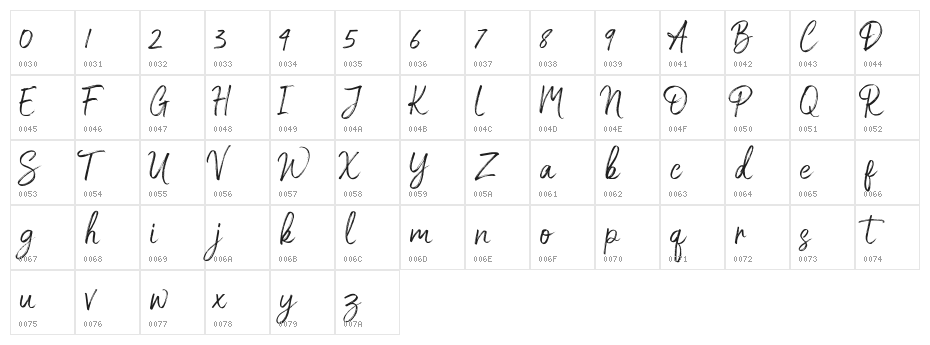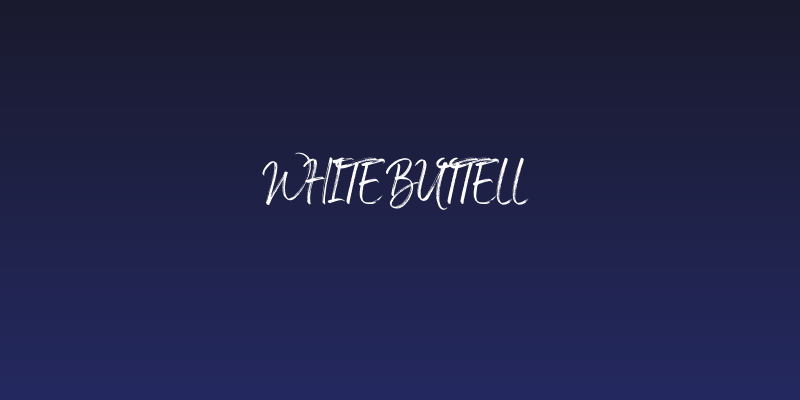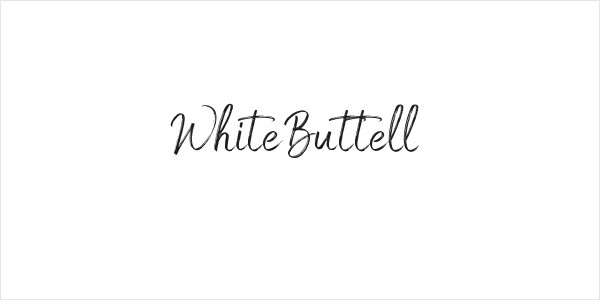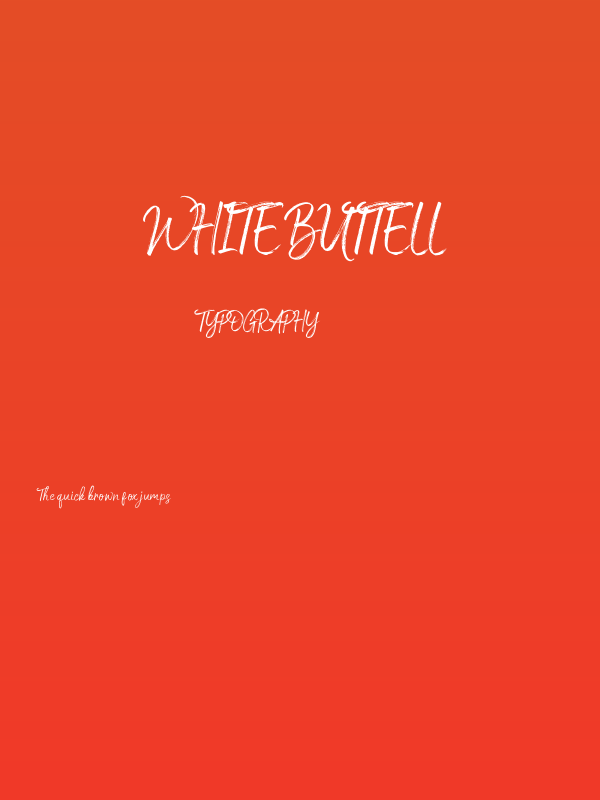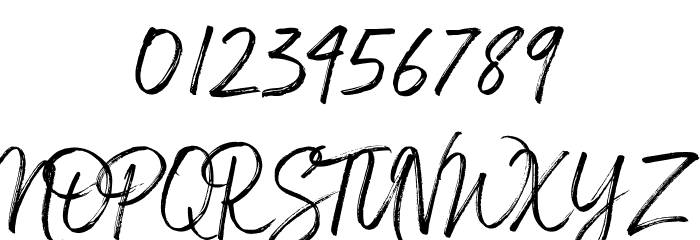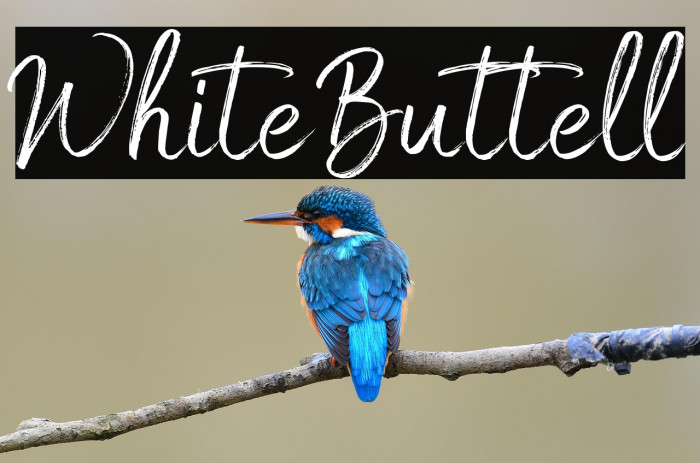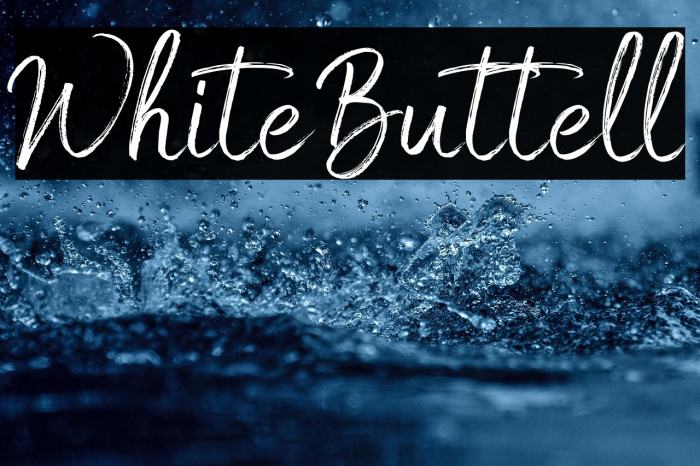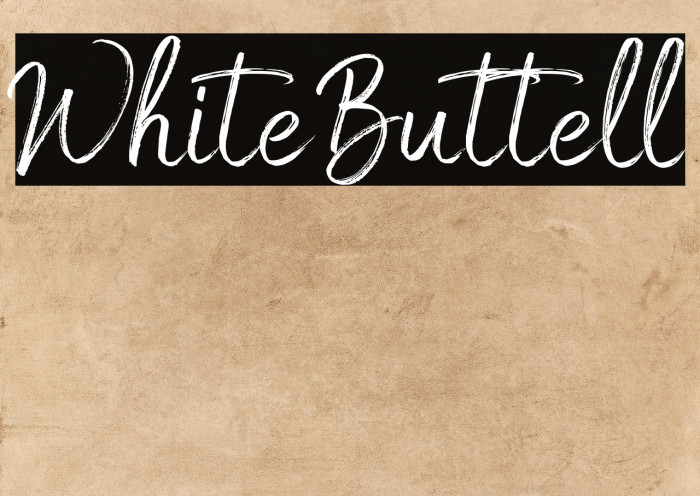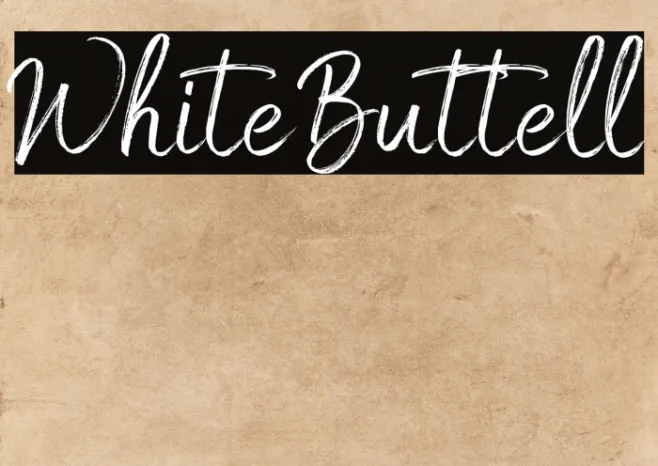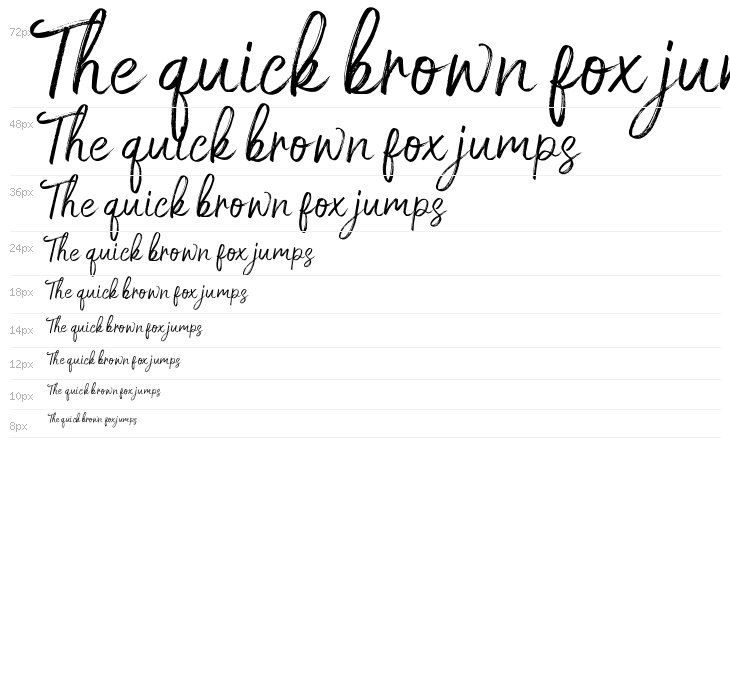
White Buttell Font
White Buttell Description
This font features a dynamic and expressive handwritten style, characterized by its fluid and cursive letterforms. The strokes are bold and energetic, with a slightly rough texture that adds a sense of authenticity and movement. The uppercase and lowercase letters are well-balanced, maintaining a consistent flow throughout the alphabet. The numerals and special characters are designed to match the overall aesthetic, providing a cohesive look. This font's unique style makes it suitable for projects that require a personal and artistic touch.
| Proposed Projects | Ideal for branding, invitations, greeting cards, and artistic projects that require a personal touch. |